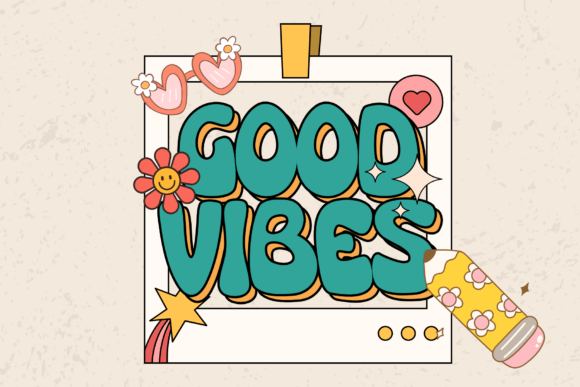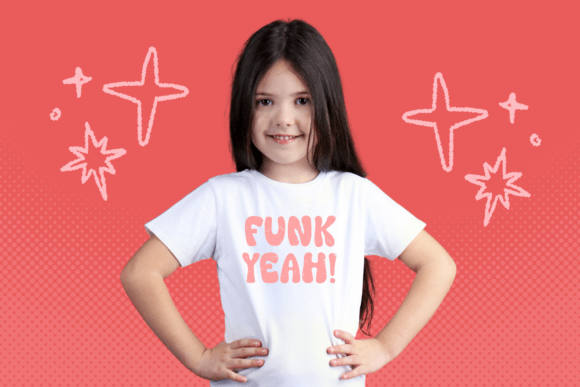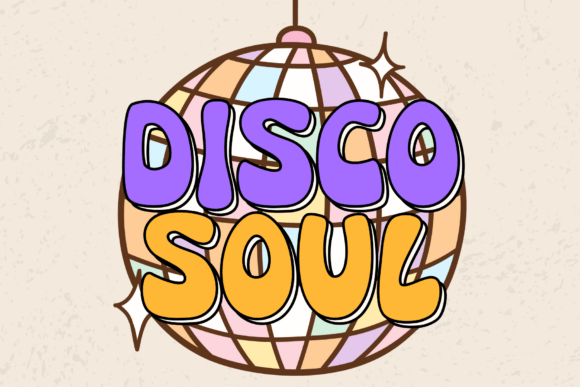
Introduction to Peachy Rounded Font
Peachy Rounded is a groovy, retro-inspired typeface with a soft, bubbly personality and a warm 70s vibe.
Designed to evoke joy, nostalgia, and playful charm, Peachy Rounded is perfect for branding, posters, album covers, social media graphics, and everything that wants a splash of sunshine and soul .